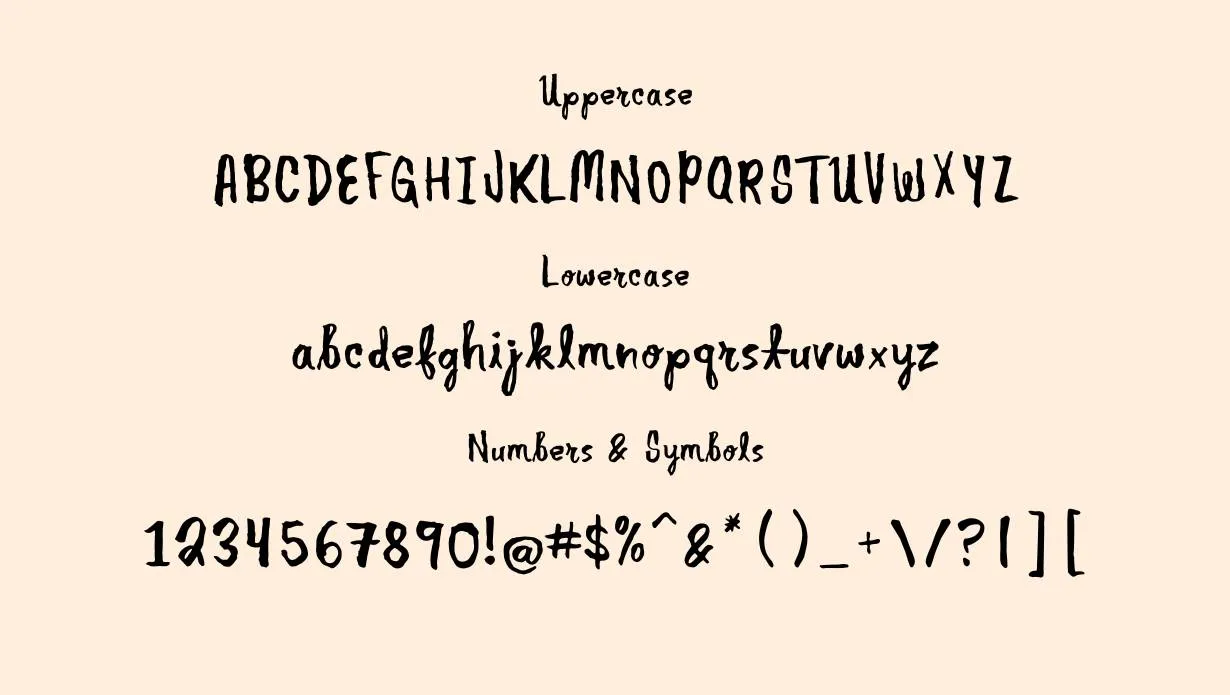
Another Brush Pen Font is a decorative and expressive typeface known for its bold and brush-like design. It’s often used in creative and artistic projects where designers want to convey a sense of energy and vibrancy.
The font’s expressive letterforms add a dynamic and artistic element to your design work.
Another Brush Pen Font Family